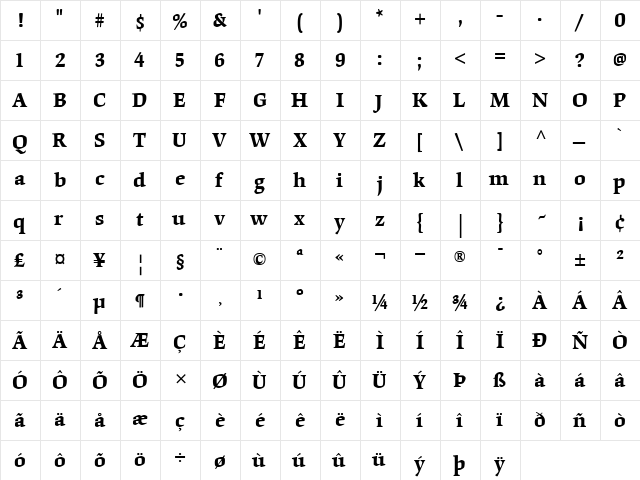
Origami-SemiBold Semi Bold
Design Context for Origami-SemiBold Typeface
Origami-SemiBold takes a measured approach to typography — its balanced proportions and neutral character make it a reliable workhorse for both digital and print work. The heavy weight commands attention and anchors typographic hierarchies.